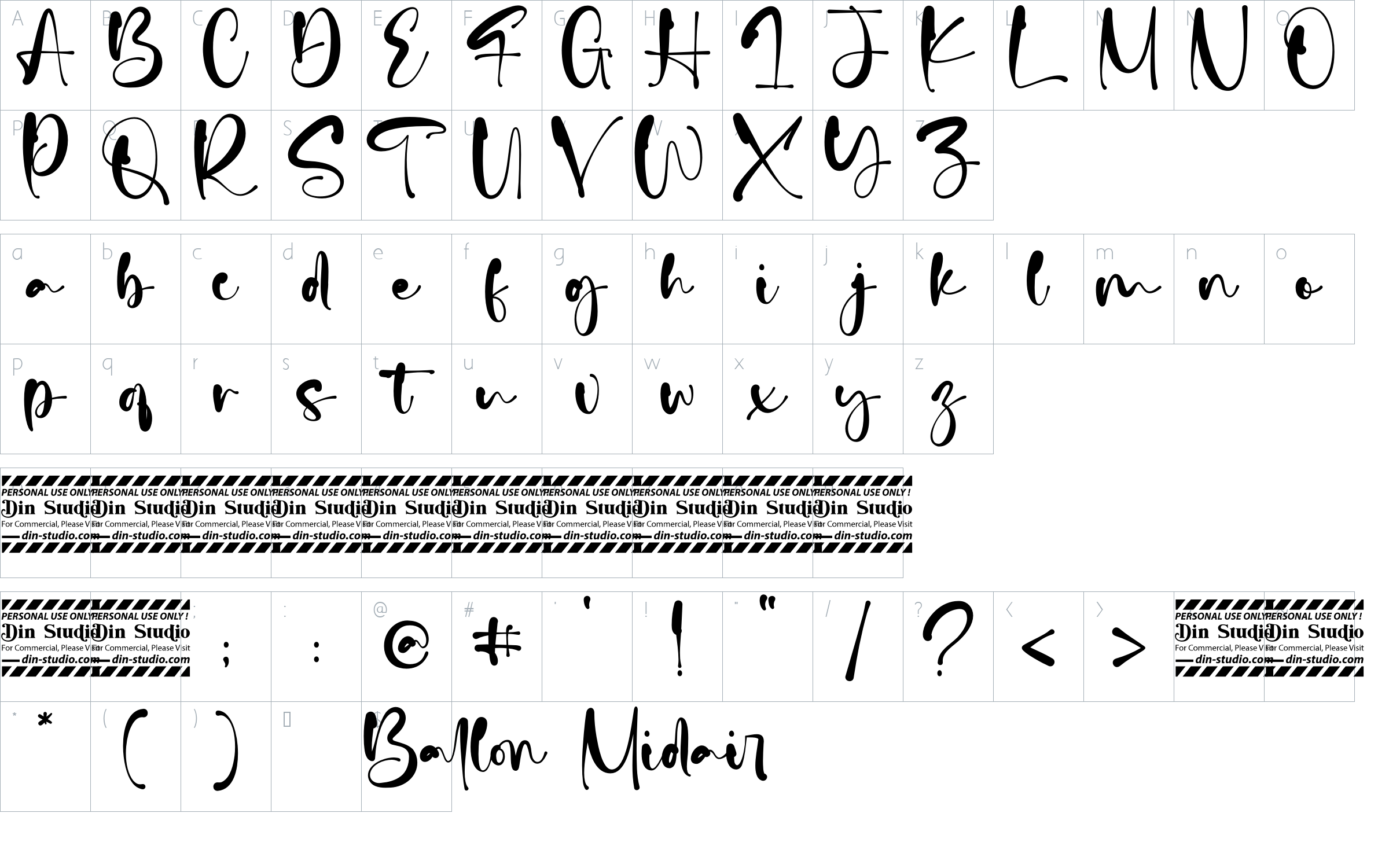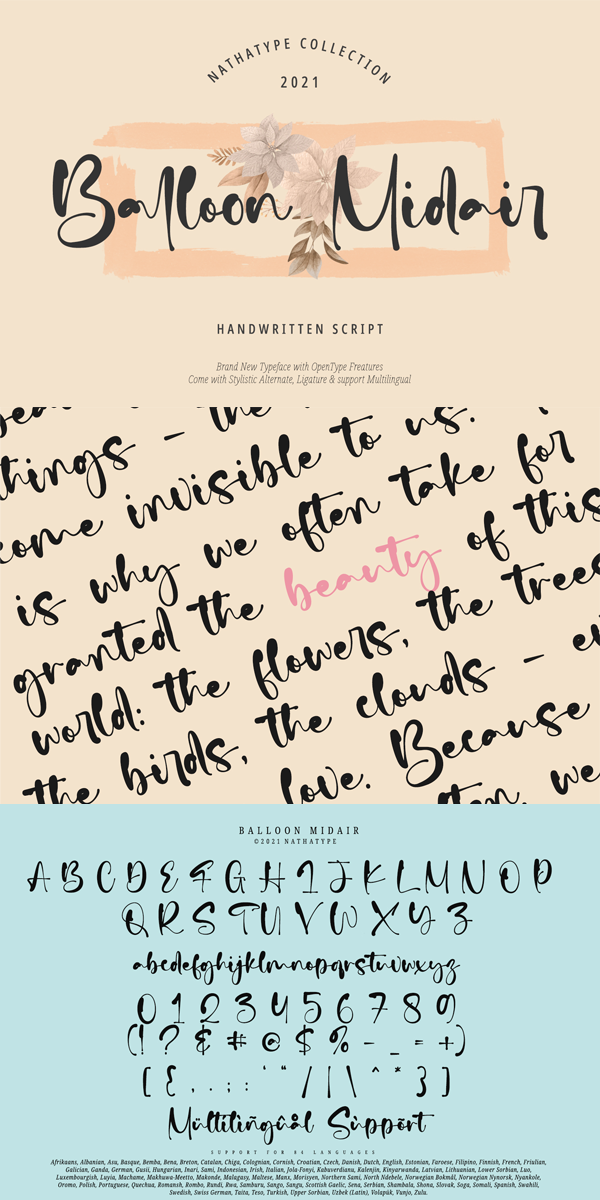
Balloon Midair Font
About Balloon Midair
Balloon Midair’ – A Handwritten Script Font.
It is such a beautifully handcrafted font which amazes your clients and elevates your projects! Every stroke and curve was created to spread happiness and elegance. Use it to create standout headings, promote your online sales, Instagram quotes, and even printed materials like business cards, t-shirts, or invitations.
Balloon Midair includes Multilingual Options to make your branding globally acceptable. See the previews above to get to know how to use them. Happy designing!